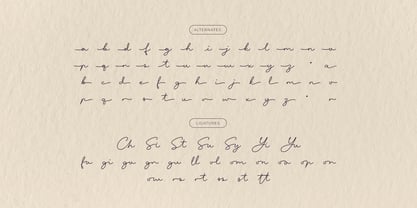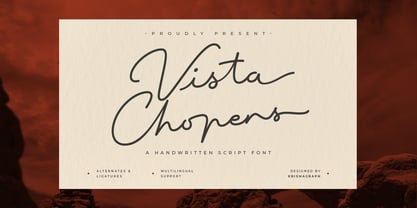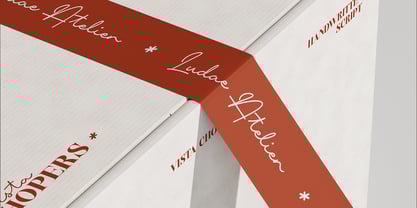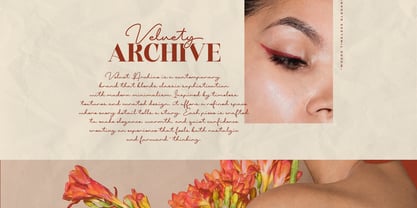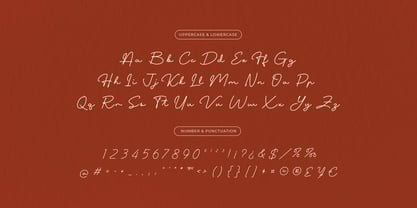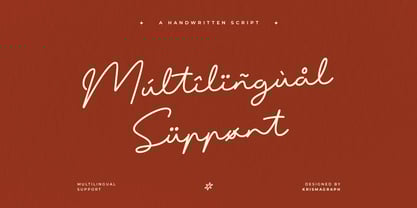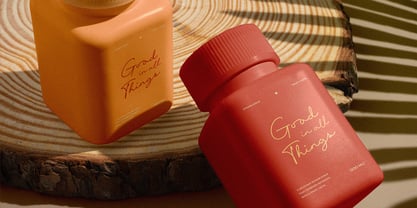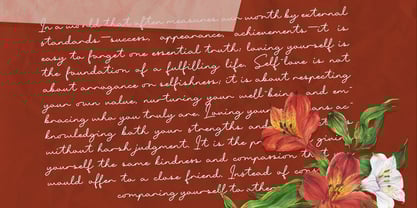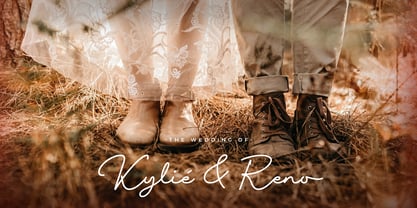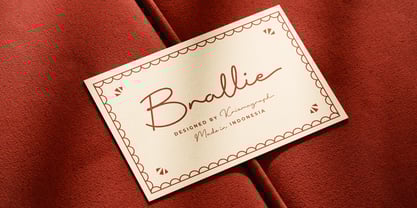
Vista Chopers
by Krismagraph
The Vista Chopers Font Family was designed by Ratna Krismawati and published by Krismagraph. Vista Chopers contains 1 styles.
Vista Chopers is a handwritten script font that beautifully blends elegance and modernity in every stroke. Designed with smooth, flowing lines and well-balanced letterforms, this typeface delivers a personal yet professional touch — perfect for branding projects, packaging, wedding invitations, editorial layouts, posters, or any creative work that needs a signature handwritten charm. This font comes with a rich set of alternates and ligatures, allowing you to create natural and dynamic lettering compositions. It also includes multilingual support, making it versatile for global use. Every detail is crafted with precision to offer a flexible and refined typographic experience, ideal for modern designers who value character and sophistication. What you get : - Numbers, fractions - Punctuation and symbols - Alternates - Ligatures - Multilingual support Feel free to follow, like, and share. Thank you and I hope you enjoy it!